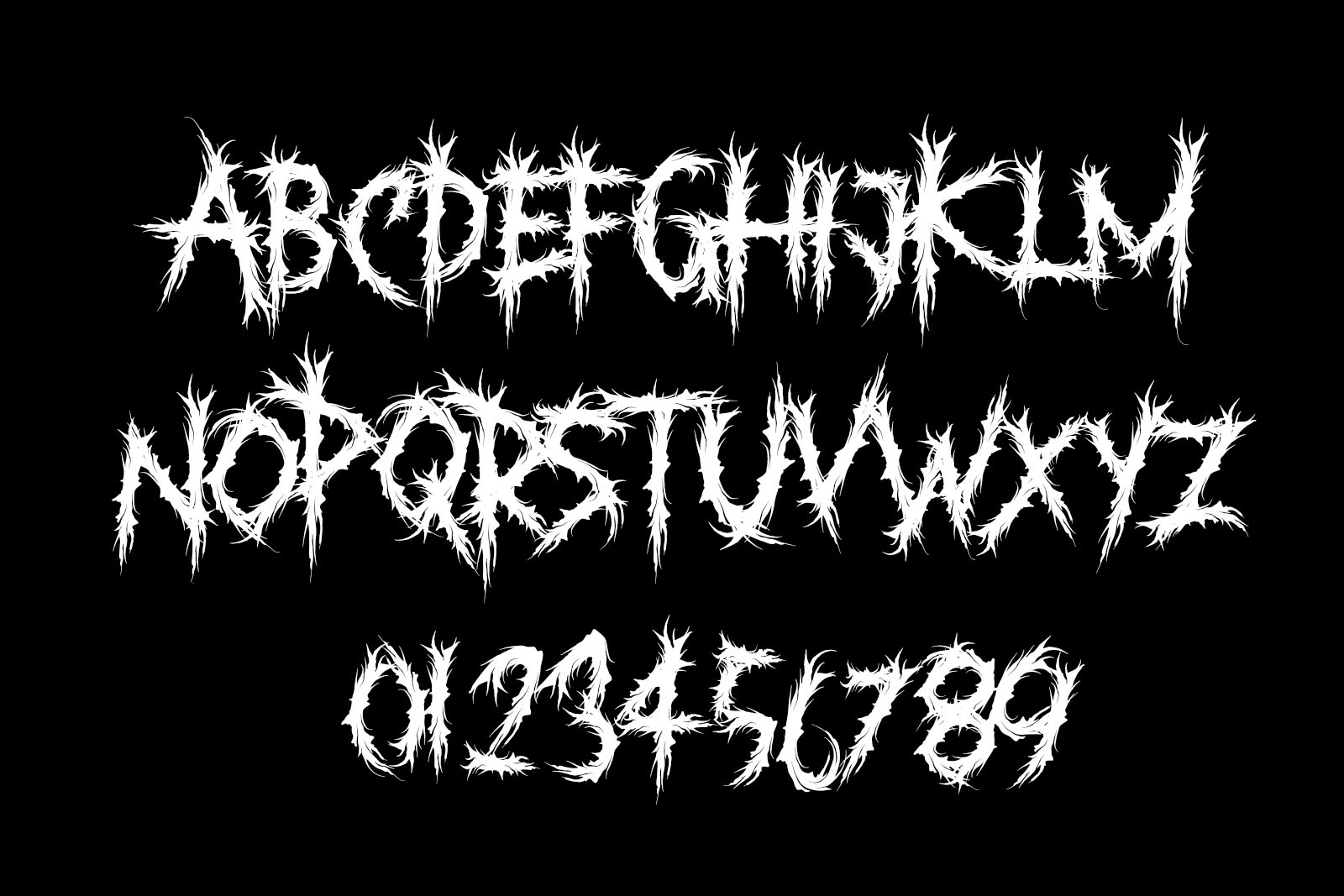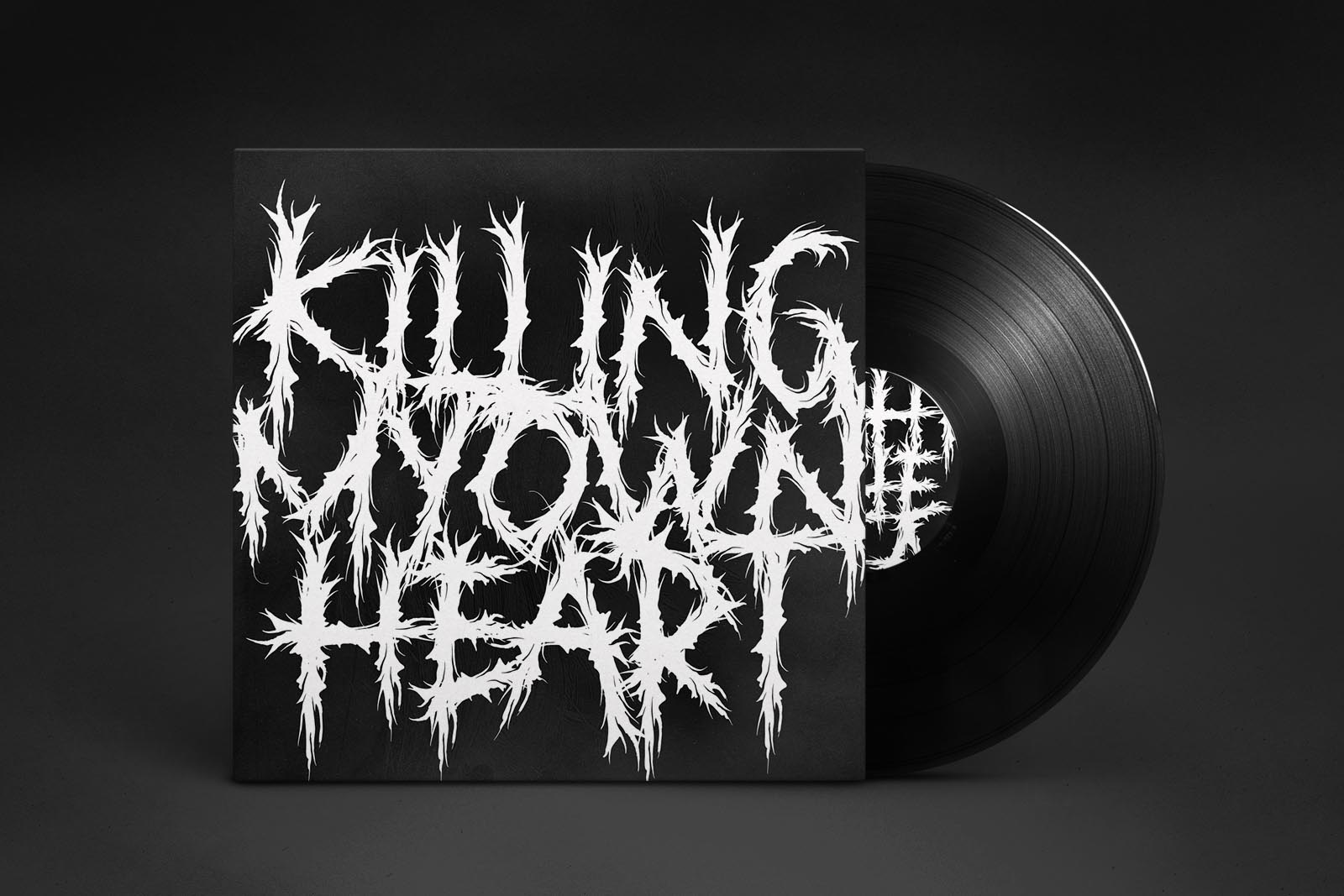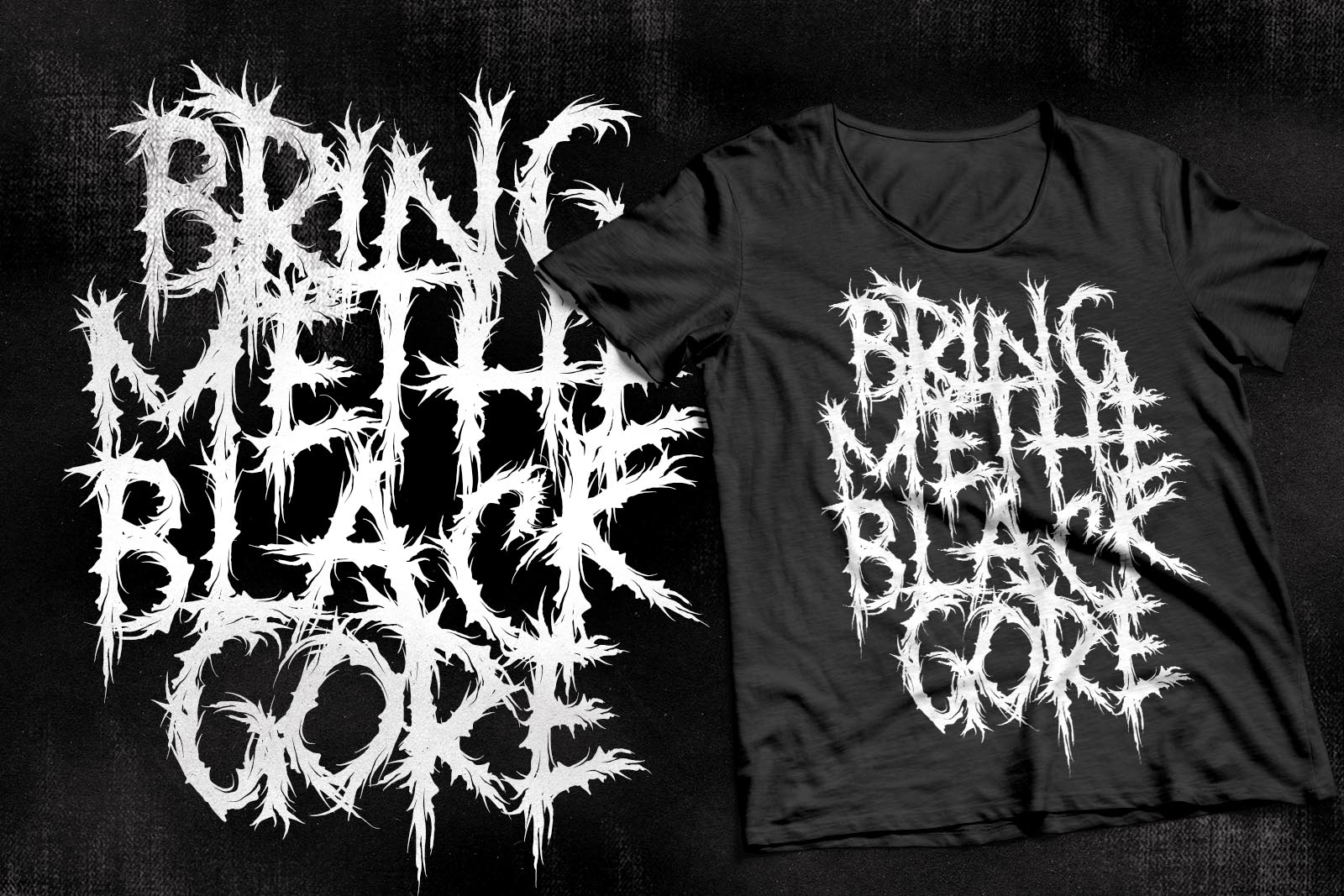
Ruthless
Ruthless is awesome black metal font. Comes with Uppercase and lowercase characters, and Uppercase alternates.   Ruthless is awesome for your logo, your band, for merchandise, for clothing, and for your band concert